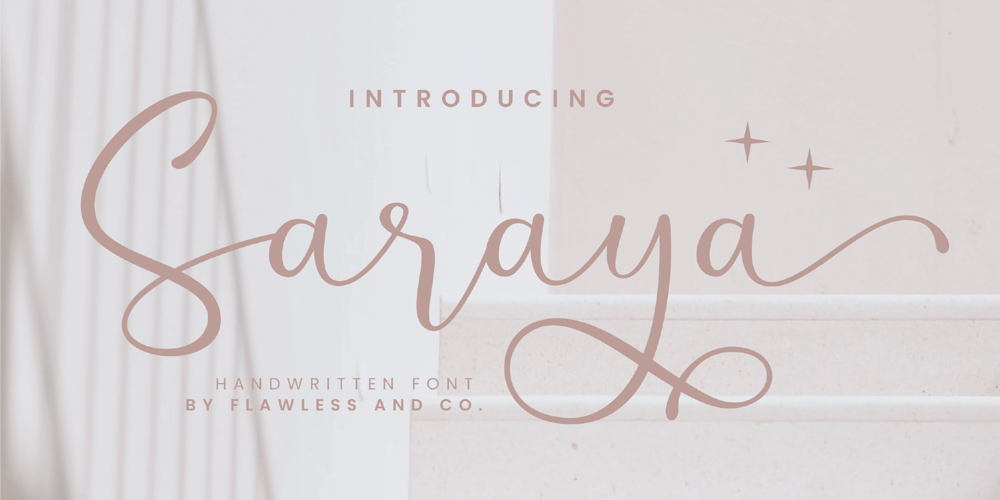
Saraya Font Family was designed by Achmad Yani and published by Flawlessandco. Saraya contains 1 styles and family package options. Saraya is a beautiful script handwritten font that exudes sweetness and girly charm.An Original typeface that suitable for any graphic designs such as branding materials, t-shirt, print, business cards, logo, poster, t-shirt, photography, quotes .etcThis font support for some multilingual. Modern Sweet Retro that contains uppercase A-Z and lowercase a-z, alternate character, numbers 0-9, and some punctuation.If you need help, just write me! Thanks so much for checking out my shop!